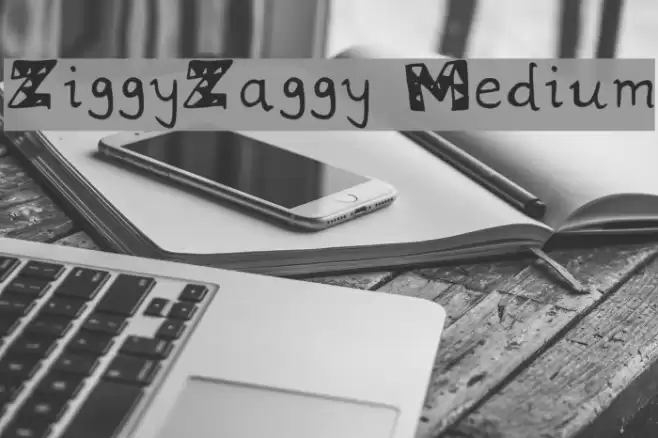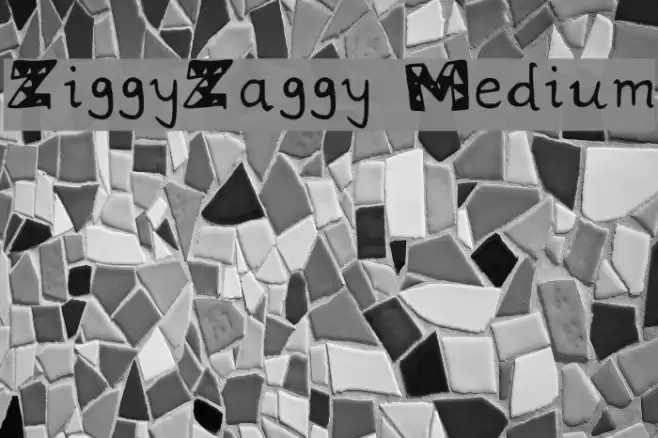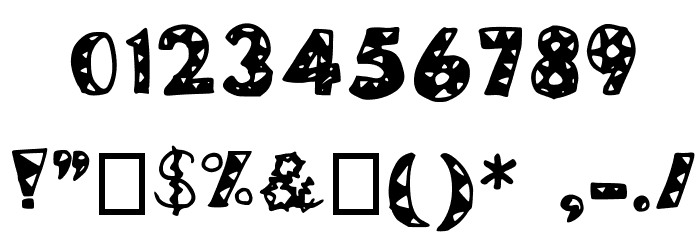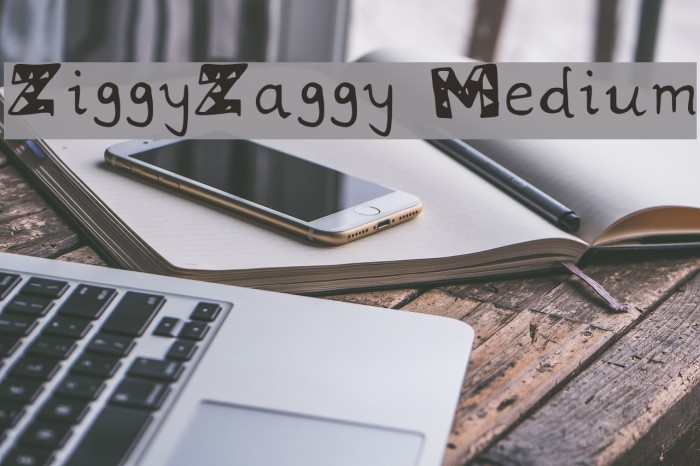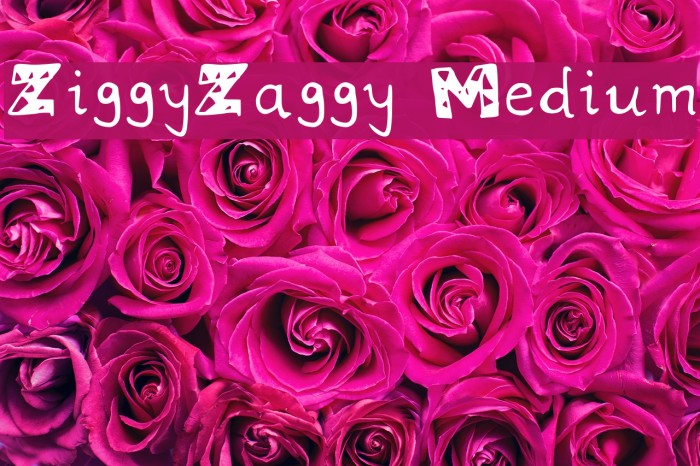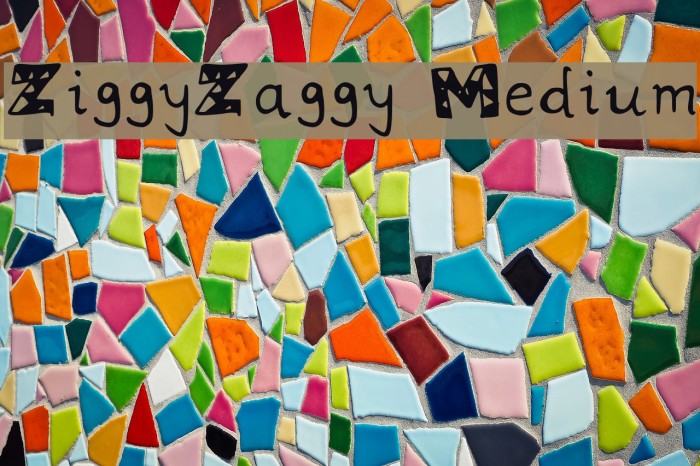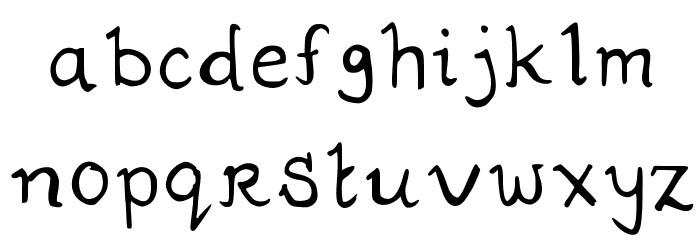
ZiggyZaggy Medium Font
ZiggyZaggy Medium Description
This playful and whimsical font features a unique design with a zigzag pattern incorporated into the bold, uppercase letters. The lowercase letters are more subtle, with a hand-drawn, casual feel. The numbers and special characters continue the theme with bold, decorative elements that make them stand out. The overall style is fun and creative, making it suitable for projects that require a touch of personality and flair.
A playful, zigzag-patterned font with bold uppercase and casual lowercase letters from Decorative fonts.